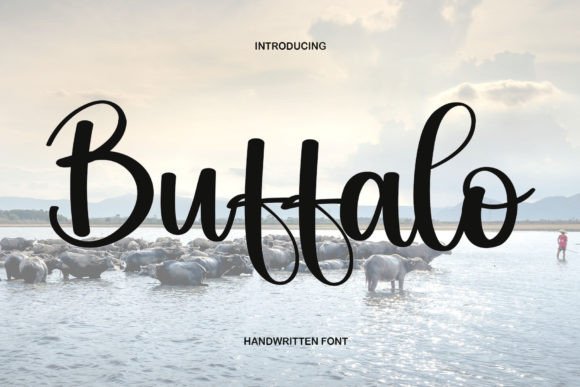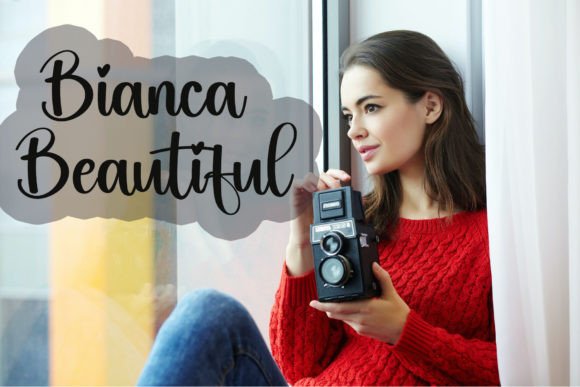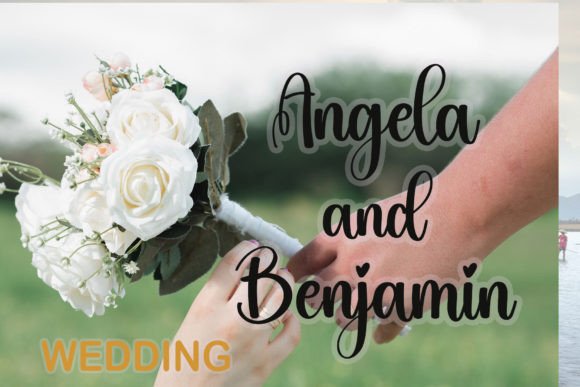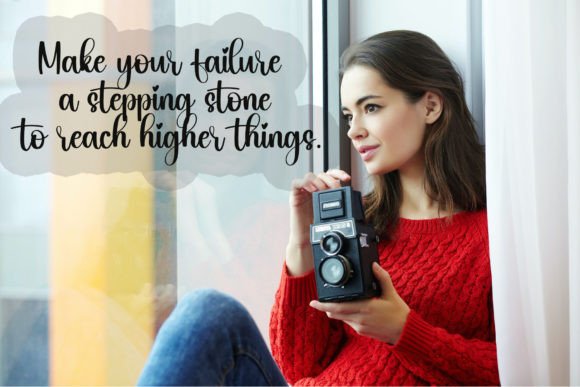
About the Buffalo Font
Add a touch of class to your work with the Buffalo Font, a truly exceptional typeface. Buffalo is a trendy handwritten font with a contemporary atmosphere and impeccable form, inspired by timeless classic calligraphy. It will add elegance and class to any of your design projects. This font can be used to write various kinds of products according to the aspect of each need.
Buffalo’s elegant yet contemporary feel makes it ideal for headlines, short text blocks in branding materials, and sophisticated packaging designs. It works particularly well for projects emphasizing quality and craftsmanship, such as luxury goods, high-end restaurants, or boutique hotels. However, its script nature and stroke variation make it less suitable for body text or UI elements where readability is paramount.
Pairing Buffalo with a clean sans-serif like Montserrat or a geometric sans-serif like Futura provides a strong contrast and enhances its upscale appeal. For a warmer feel, consider pairing it with a complementary serif like Playfair Display. Avoid pairing it with other highly decorative or overly playful fonts, which would diminish its unique character.
Buffalo exudes a sophisticated, modern elegance. Its slightly informal feel prevents it from being overly stuffy, making it versatile for brands aiming for a balance between classic sophistication and contemporary edge.